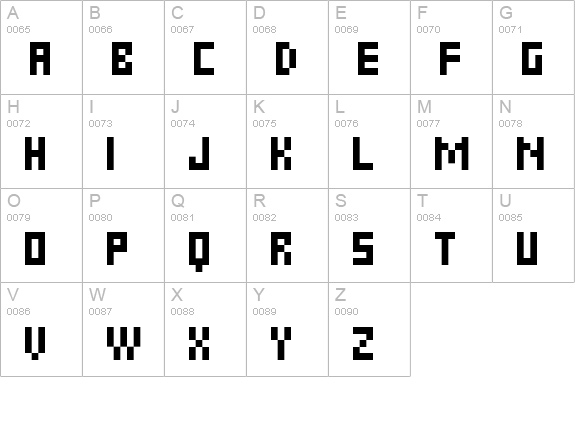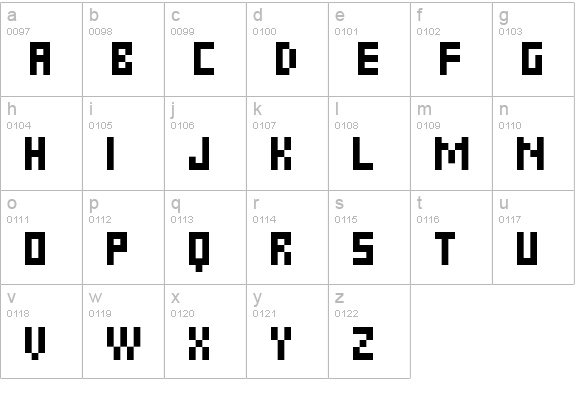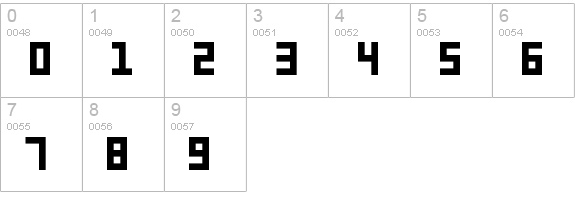
6px2bus Font Details
6px2bus font is a modern and stylish typeface that exudes elegance and sophistication. With its sleek lines and contemporary design, this font is perfect for a wide range of projects, from branding to editorial design. The clean and minimalistic look of 6px2bus font makes it versatile and suitable for various applications. One of the best things about 6px2bus font is that it is available for free download at FontsMarket.com. This means that you can easily access this high-quality font without any cost, making it a great choice for designers and creatives looking to enhance their projects without breaking the bank. Whether you are creating a logo, designing a website, or working on a print project, 6px2bus font is sure to make a statement. Its timeless design and readability make it a valuable addition to any designer's toolkit. Download 6px2bus font today at FontsMarket.com and take your projects to the next level with this exceptional typeface.